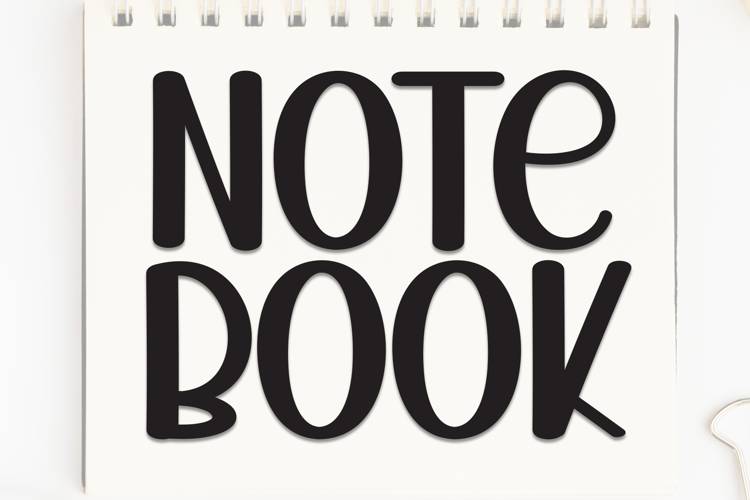
Notebooks handwritten font
Notebook Font -- Neat and Clean Note-Taking Font - Perfect for Study Notes, Digital Planners, and More
Looking for the perfect font to elevate your note-taking game? This neat and clean handwriting font is designed to make your notes easy to read and aesthetically pleasing. Whether you're creating study notes, digital planners, or journaling, this font provides a simple, legible style that helps keep your work organized and visually appealing.
Key Features:
Neat & Clean Design: A simple, legible handwriting font that’s perfect for daily use and note-taking.
Versatile Usage: Ideal for study notes, digital planners, journaling, GoodNotes, classroom resources, and more!
Perfect for Organization: Whether you’re working on school assignments, planning, or creating printable worksheets, this font will keep everything looking neat and tidy.
Handwritten Feel: Offers a handwritten touch to your projects, while still maintaining a clean and simple appearance.
Ideal For:
Note-Taking: Create beautiful study notes that are easy to read and organize.
Digital Journals: Perfect for bullet journaling or creative journaling layouts.
Educational Materials: Enhance worksheets, flashcards, and other resources with a professional yet approachable look.
Printable Planners: Customize your planner layouts with this clear, readable font.
The font includes uppercase, lowercase, accented characters, numbers, punctuations